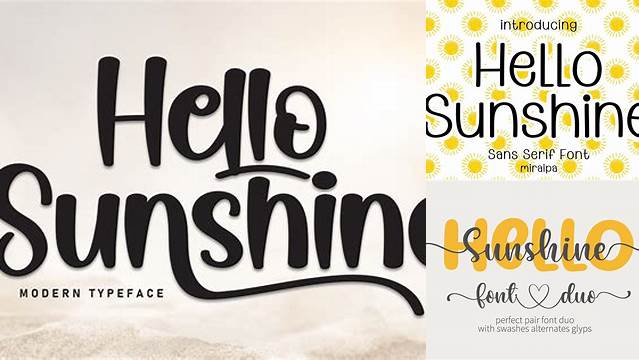
Hello Sunshine Font: Get It Free Now!
Hey everyone! π If you're on the hunt for a font that's as cheerful and bright as a sunny day, then you've probably stumbled upon "Hello Sunshine." It's a font that just oozes positivity and is perfect for a ton of design projects. And the best part? You can often find a hello sunshine regular font free download, which is awesome for both personal and commercial use! We're diving deep into everything you need to know about this fantastic font, from where to grab it for free to how to use it to make your designs pop. So, buckle up, and let's get started on this fontastic adventure! βοΈ
H2: Understanding the Allure of Hello Sunshine Font
So, what's the big deal with the hello sunshine regular font free download? Well, it's more than just a font; it's a mood! This font is designed to bring a sense of joy and optimism to any project. Its friendly and approachable style makes it ideal for a variety of applications, from personal projects like crafting and scrapbooking to professional branding and marketing materials. The regular style is especially versatile, providing a clean and easily readable base for your text. Think about it: a logo for a children's brand, a cheerful headline for a blog post, or even a fun invitation for a summer party β hello sunshine regular font free download is a great choice. The font's inherent charm makes your designs more engaging and memorable. The design of the font often includes rounded edges and a playful aesthetic that instantly grabs attention and creates a positive first impression. This is particularly important in today's visually crowded world, where standing out is essential. By using a font like Hello Sunshine, you can communicate your brand's personality in a way that resonates with your audience on a more emotional level. The font's popularity stems from its ability to evoke feelings of warmth and happiness, making it a powerful tool for visual communication. Using the hello sunshine regular font free download ensures that your message is not only communicated but also experienced in a positive way. Itβs a design element that elevates your work and adds that special touch that makes everything better.
H3: The Psychology Behind Font Choices
Ever wondered why certain fonts just feel right? Well, there's a whole science behind it! The psychology of fonts plays a significant role in how we perceive messages. Different fonts evoke different emotions, and Hello Sunshine excels at conveying happiness and approachability. This is because the font's design often mimics the characteristics of handwriting, which makes it feel personal and relatable. The use of rounded shapes and a consistent stroke weight contribute to the sense of comfort and ease that the font projects. For example, a font with sharp edges and a serious tone may be ideal for a legal document, but it's not the best choice for a friendly greeting card or a website aimed at children. The design should align with the context. The specific details, such as the spacing between letters and the curvature of the strokes, all influence how the audience interprets the text. Using hello sunshine regular font free download takes advantage of this psychological impact to create a more positive and engaging experience for your audience. People are naturally drawn to things that make them feel good. By choosing a font that has a positive connotation, you can instantly boost the effectiveness of your design. This is particularly important in marketing and branding, where the goal is to build trust and create a connection with your target audience. A thoughtful font choice can make your brand more memorable and more likely to be associated with positive attributes. The choice of font is not just about aesthetics; it's about communicating a feeling and building an emotional connection with your audience.